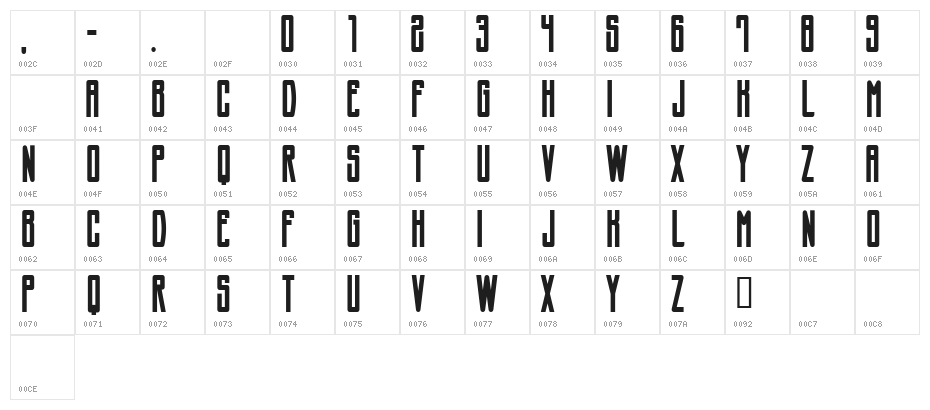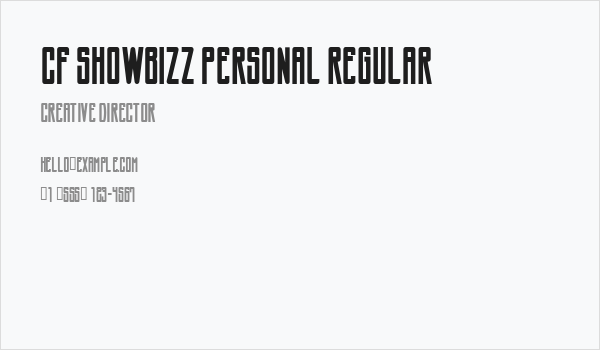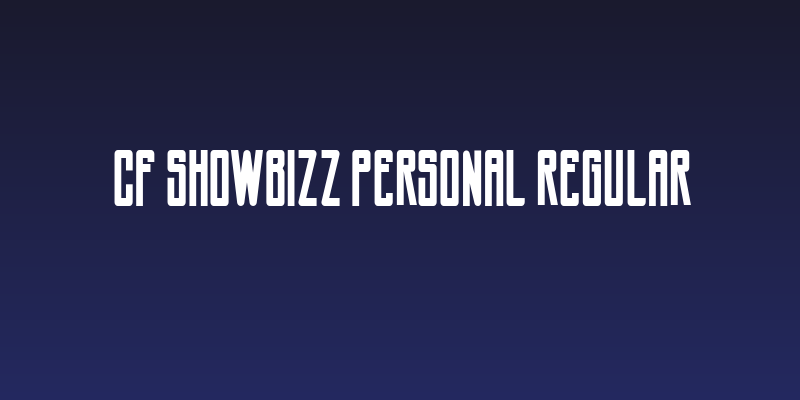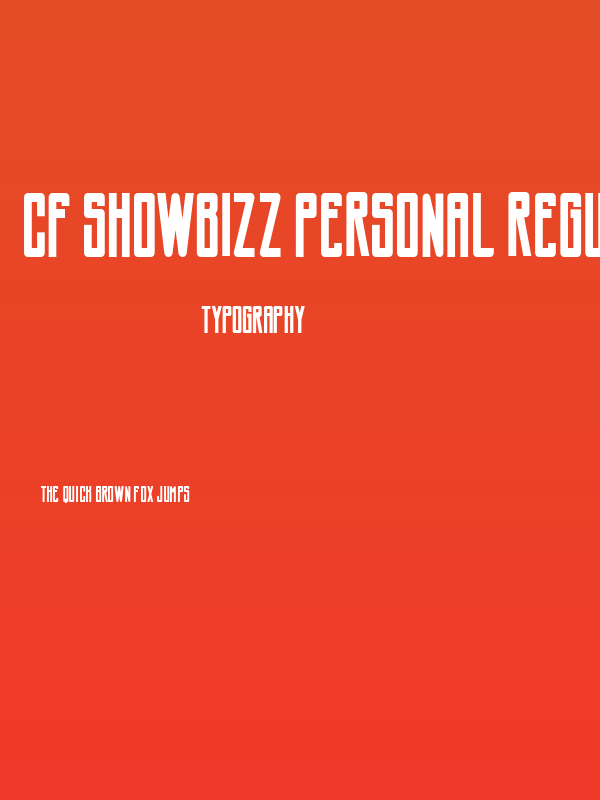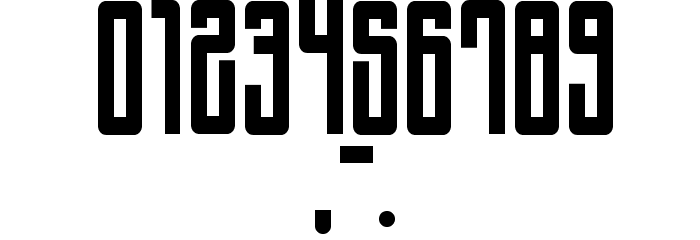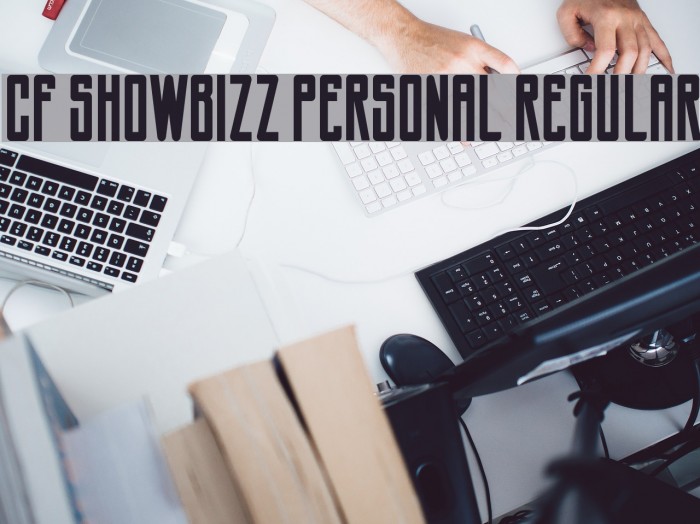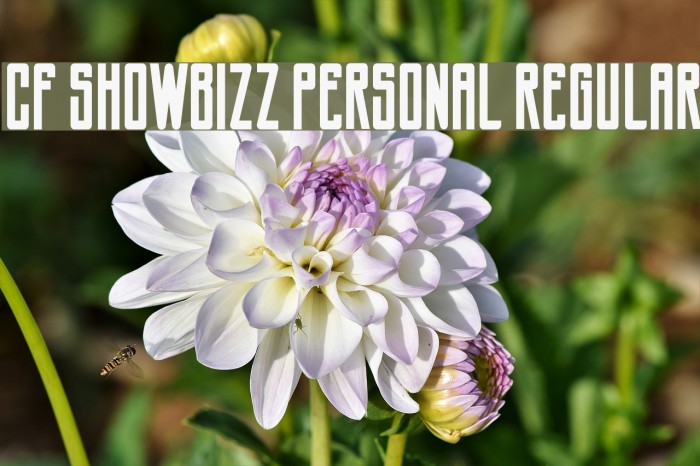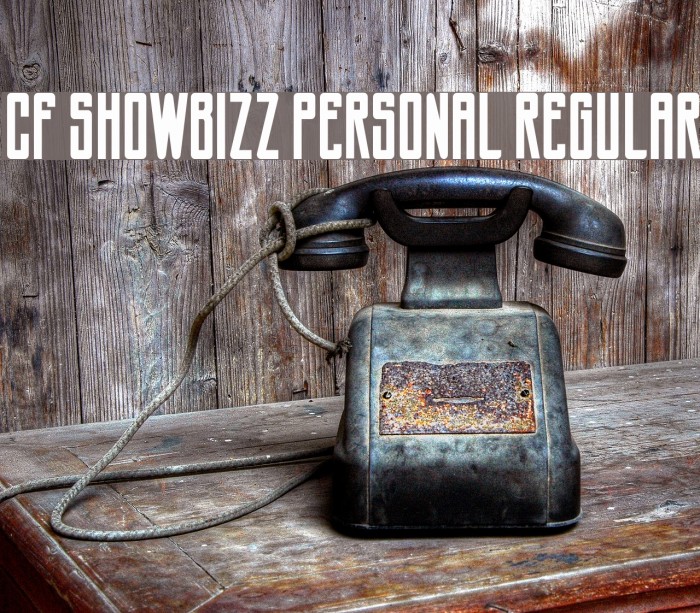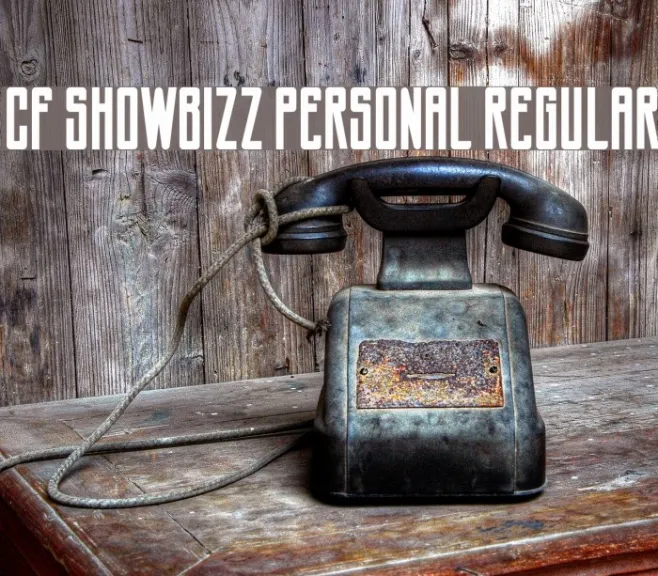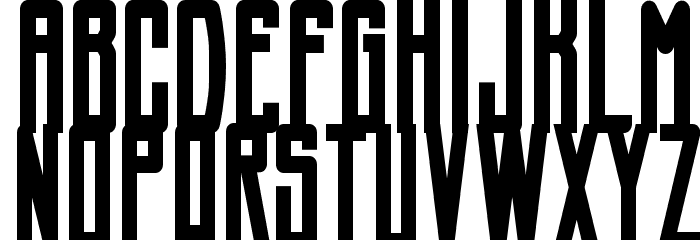
CF Showbizz PERSONAL Regular Font
CF Showbizz PERSONAL Regular Description
This font features a bold and striking design with tall, narrow characters that create a strong visual impact. The uppercase letters are particularly elongated, giving the font a unique and modern appearance. The consistent stroke width across all characters contributes to a uniform look, while the tight character spacing enhances its compactness. The numerals and special characters maintain the same bold style, ensuring cohesion throughout. This font is well-suited for projects that require a bold statement or a modern, edgy aesthetic.
| Proposed Projects | Ideal for posters, headlines, branding, and any design that aims to capture attention with a modern flair. |